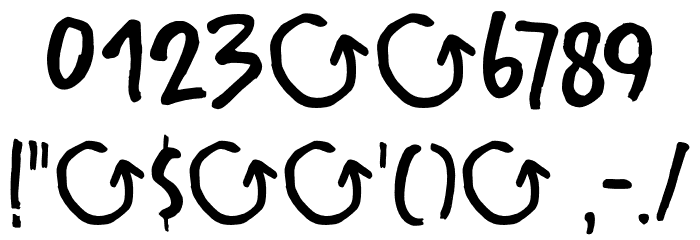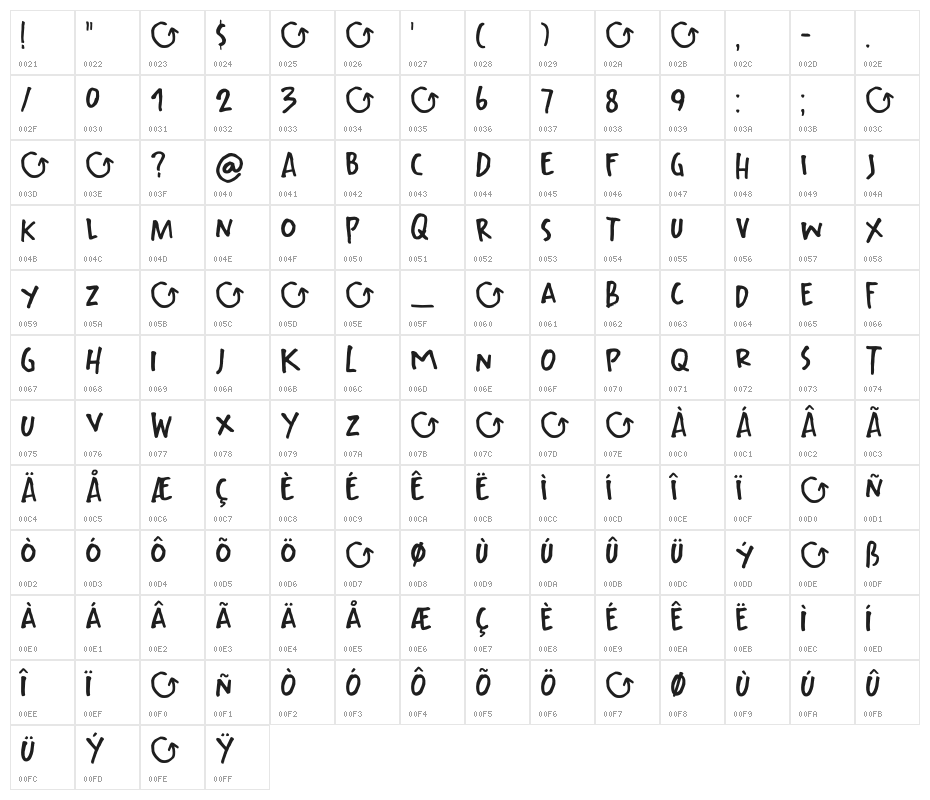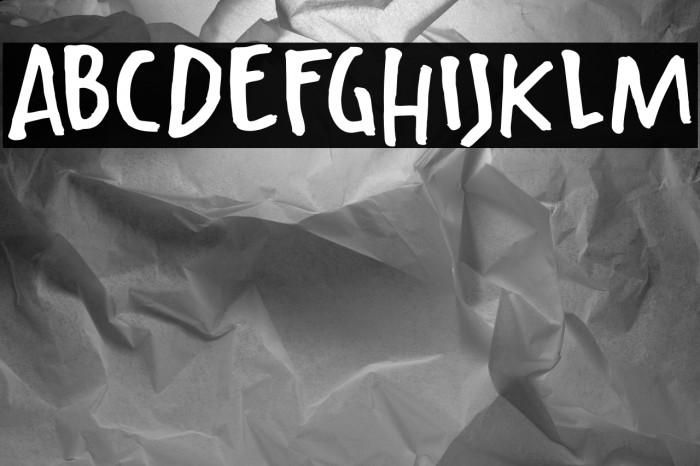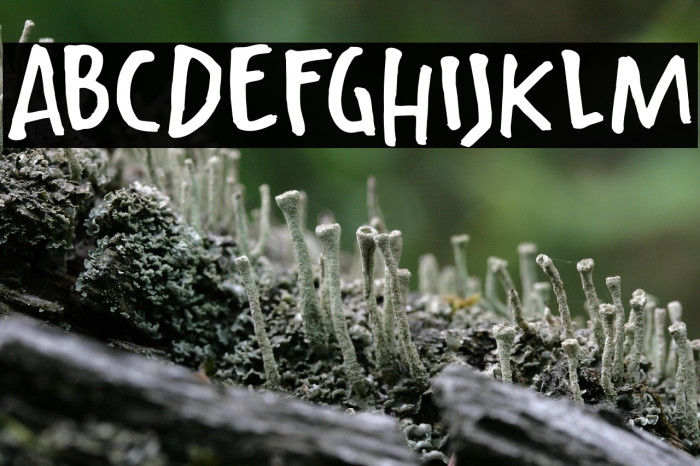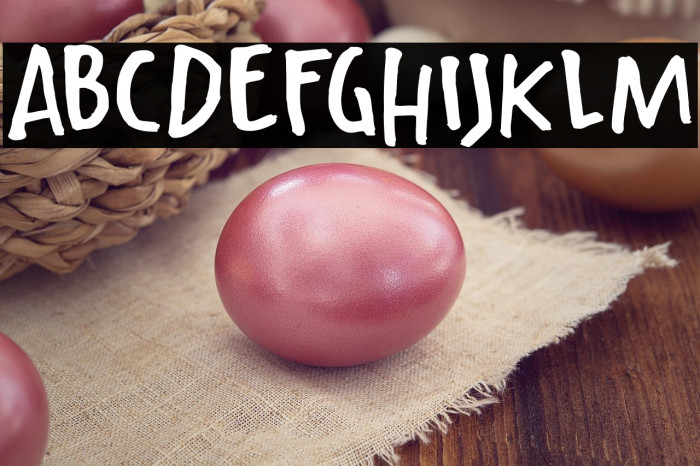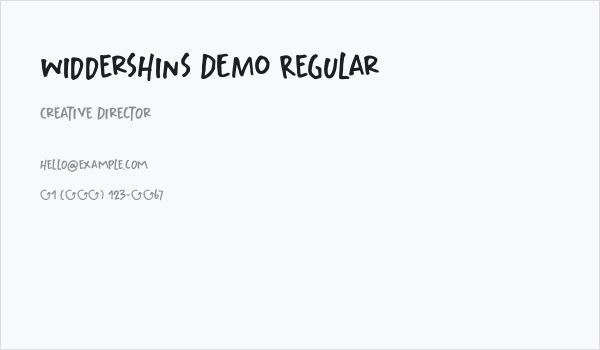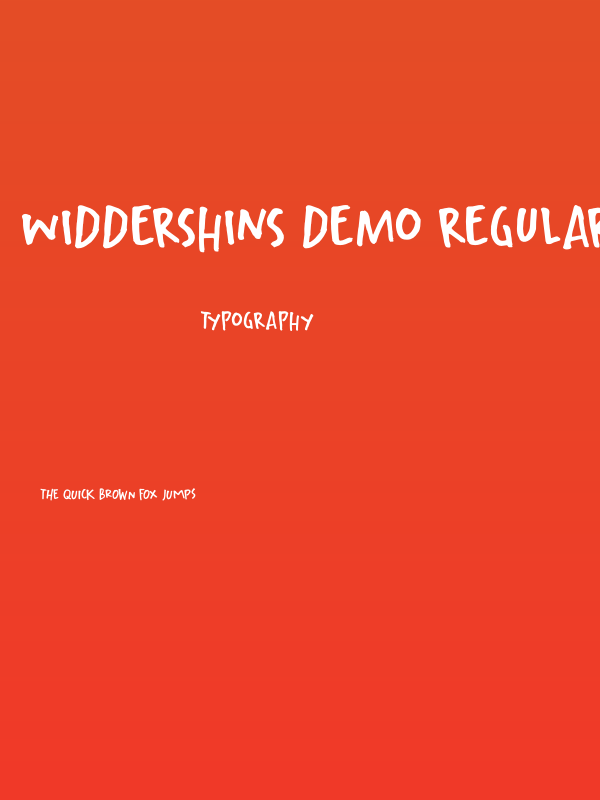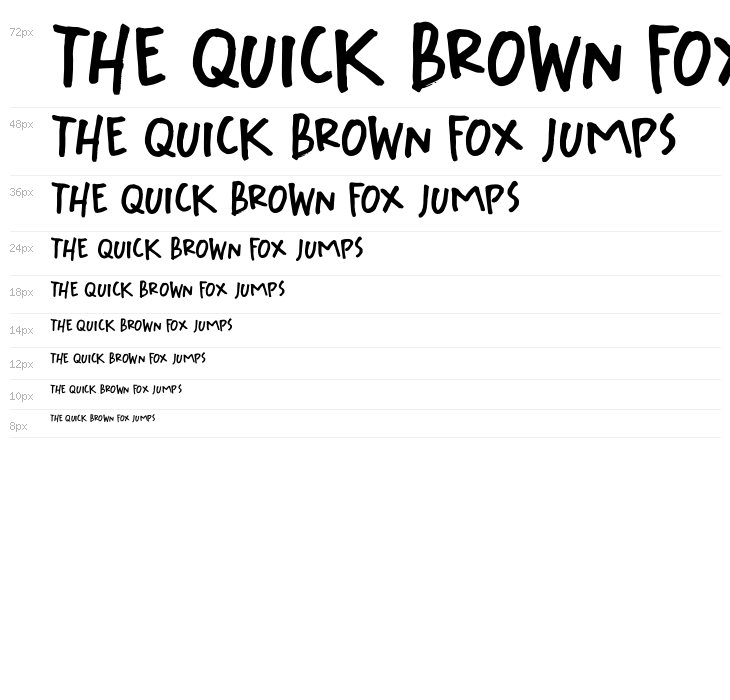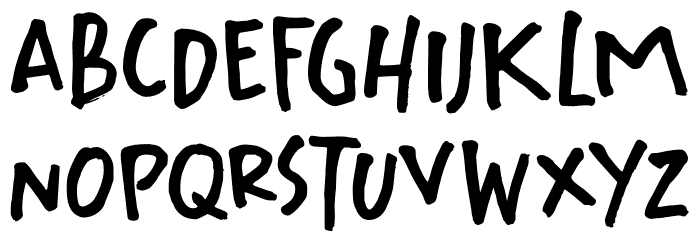
Widdershins DEMO Regular Font
Widdershins DEMO Regular Description
This font features a bold, hand-drawn style with a playful and energetic character. The letters are irregular and slightly tilted, giving it a whimsical and informal appearance. The strokes are thick and uneven, adding to the casual, artistic feel. The uppercase and lowercase letters maintain a consistent style, with rounded edges and varying line thickness. The numbers and special characters follow the same playful design, making the font suitable for creative and informal projects. Its unique style stands out, making it ideal for attention-grabbing designs.
| Proposed Projects | Ideal for posters, children's books, creative branding, and playful invitations. |